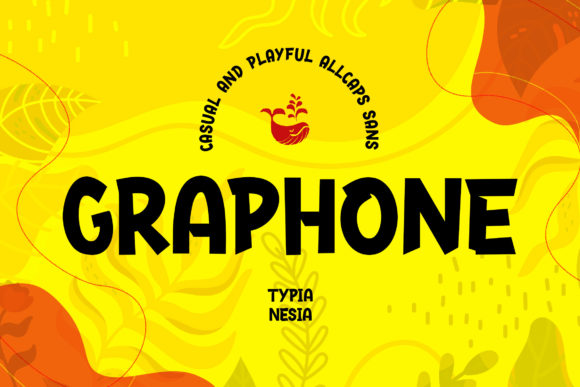
**Unleash Your Creativity with Graphone: The Bold and Playful Display Font for Kids Designs**
In a world of ordinary fonts, Graphone emerges as an extraordinary display font, designed to ignite creativity and bring life to your kids-themed projects. This all-caps font exudes a casual, bold, and unique charm that instantly captivates the imagination, making it the perfect choice for designers, crafters, and anyone looking to add a touch of whimsy and fun to their creations.
**A Treasure Trove of Design Possibilities**
With Graphone's extensive character set, you'll have a vast playground of possibilities at your fingertips. Experiment with different letter combinations to create eye-catching headlines, vibrant posters, playful invitations, and captivating social media posts. The sky's the limit when it comes to expressing your creativity with this versatile font.
**Make Your Designs Pop with Personality**
Elevate your designs to new heights with Graphone's bold and playful personality. Its unique all-caps style commands attention, making your words leap off the page and captivating your audience. Whether you're creating designs for kids' parties, educational materials, or simply adding a touch of fun to your projects, Graphone is guaranteed to make a lasting impression.
**Effortless Readability for Young Minds**
Designed with young readers in mind, Graphone ensures effortless readability, making it the perfect choice for educational materials, children's books, and any content aimed at kids. Its clear and distinct letterforms allow young minds to easily recognize and comprehend words, fostering a positive learning experience.